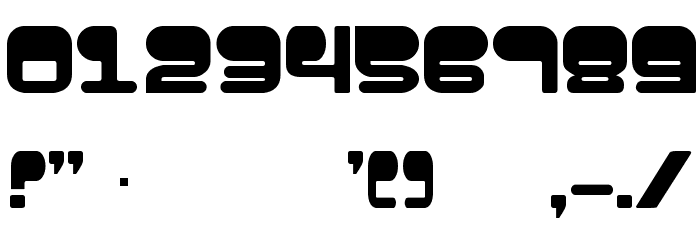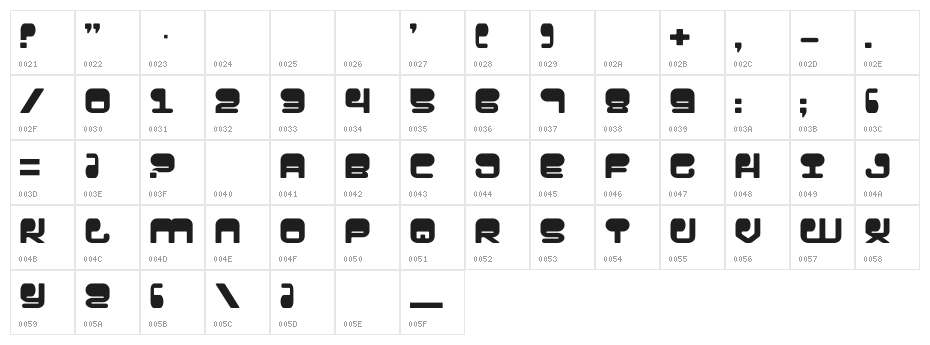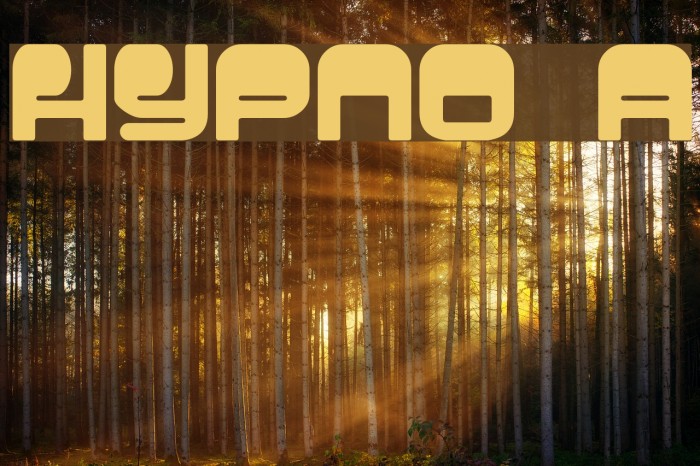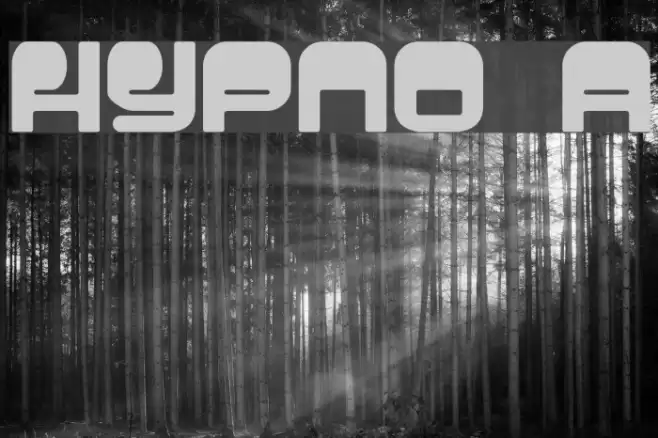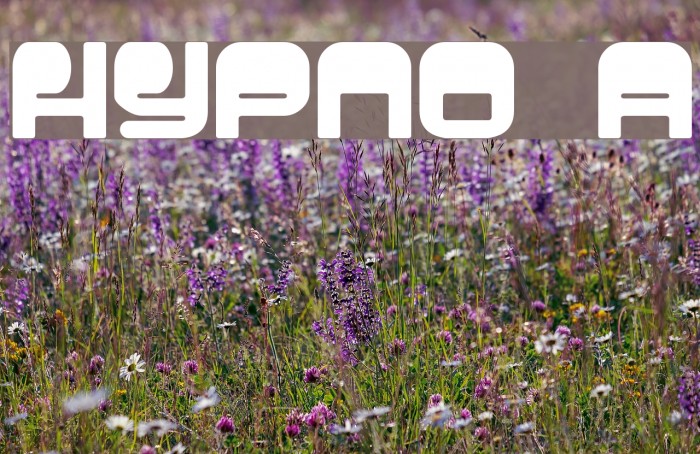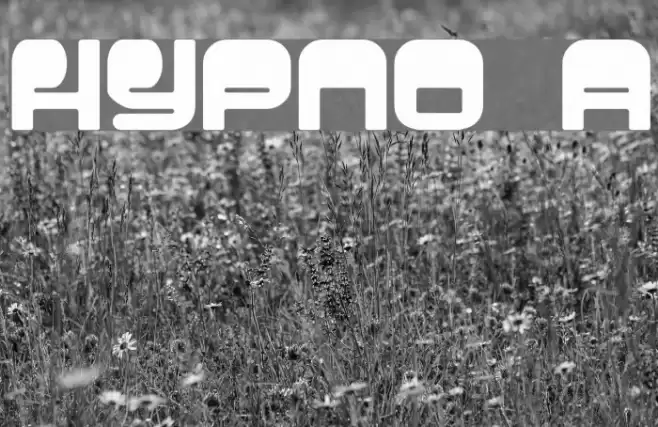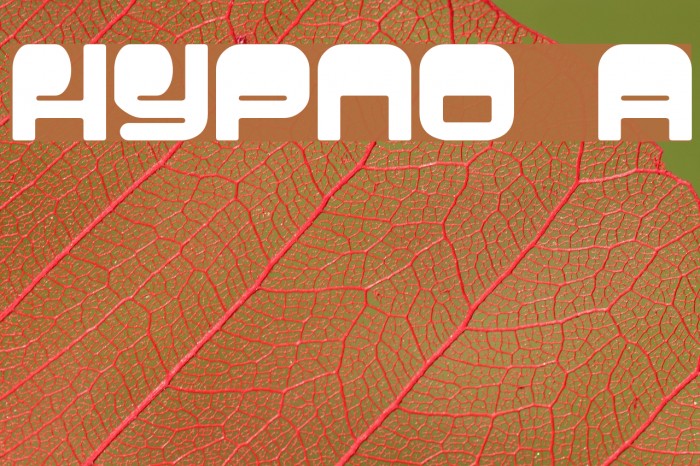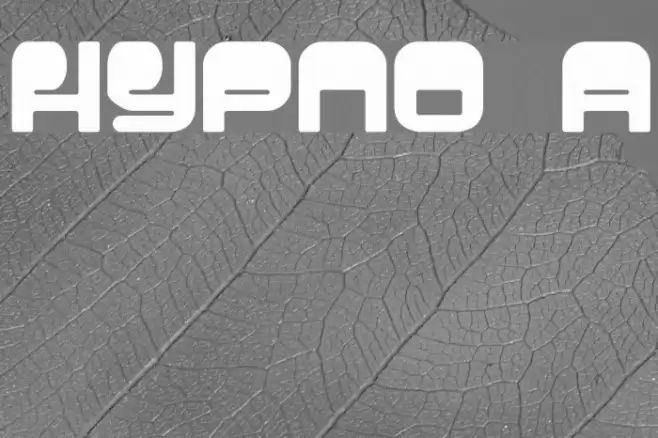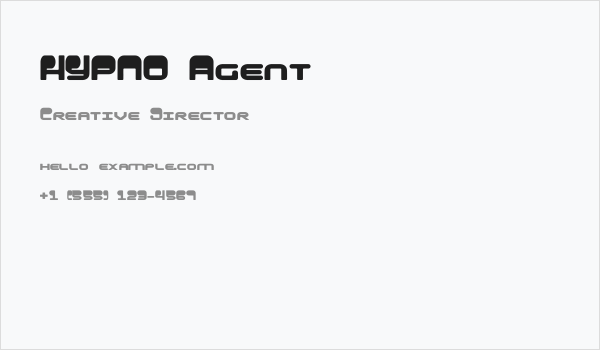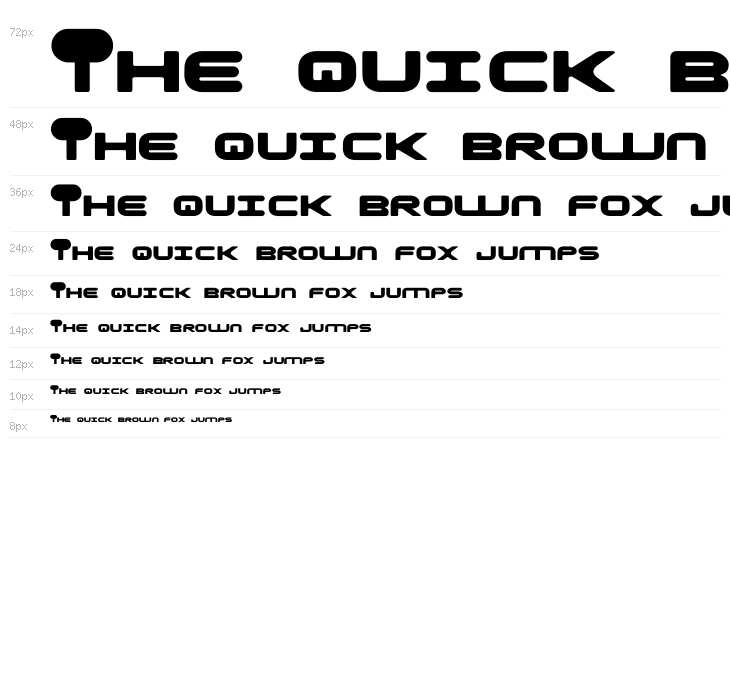
HYPNO Agent Font
HYPNO Agent Description
This font features a futuristic and bold design with a distinctly modern aesthetic. The characters are constructed with a geometric style, incorporating rounded edges and a uniform thickness that gives it a sleek and cohesive look. The uppercase and lowercase letters maintain a consistent height, enhancing readability while preserving the unique style. Numbers and special characters follow the same design principles, ensuring a harmonious appearance across all glyphs. The font's boldness and distinctive shapes make it ideal for projects that require a strong visual impact.
| Proposed Projects | Ideal for sci-fi themed designs, technology branding, video game titles, and modern advertising campaigns. |